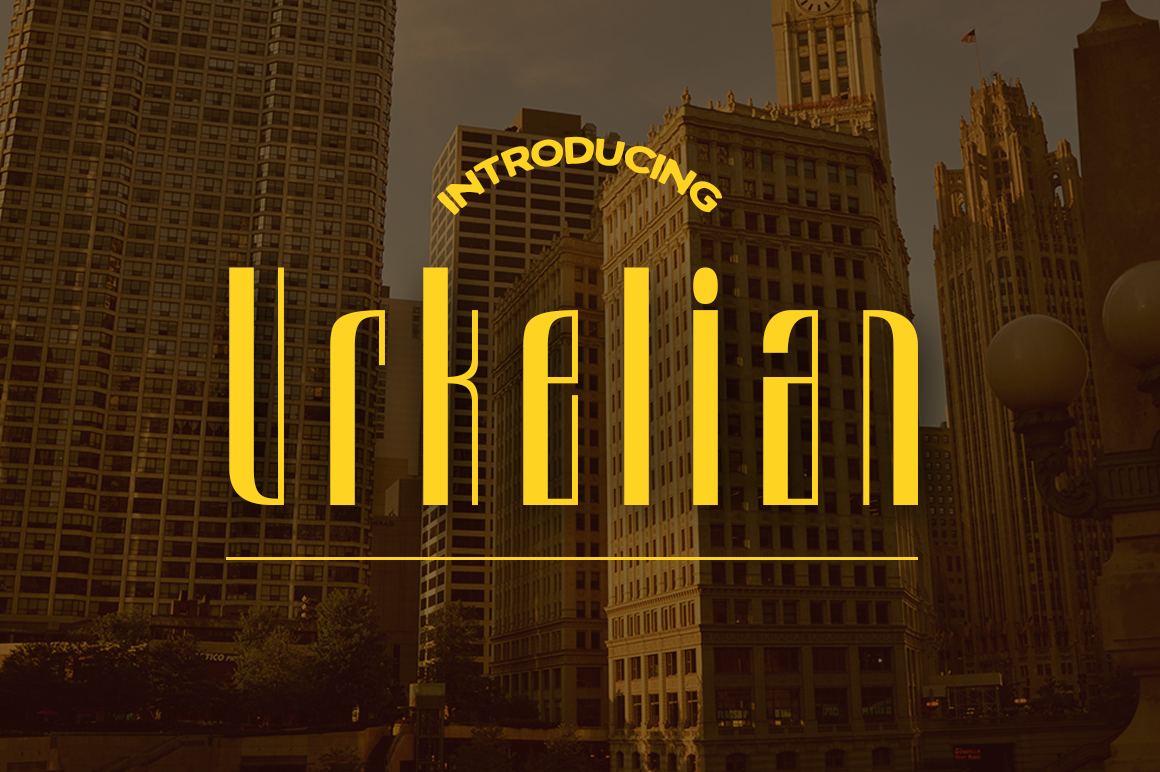
HomePersonal Use FreeUrkelian Personal Use Free Urkelian FacebookXPinterestWhatsApp 1 of 1 About Urkelian Font Urkelian is a retro and nostalgic font. It features a narrow style. It is ideal for tons of project types and is offered for free from Typodermic. DOWNLOAD ON CREATIVE FABRICAThis font is sold and delivered by Creative Fabrica. Font Canyon may earn a commission if you buy through this link. People also explored Oregon Point Font Motters Font Maseiye Font Cogito Font Special December Font Olarwe Font Strongman Deadly Poison Ii Font Mintea Creamy Font 573 0 TagsUrkelian Font Previous articleBreamcatcherNext articleZero Hour LEAVE A REPLY Cancel reply Comment: Please enter your comment! Name:* Please enter your name here Email:* You have entered an incorrect email address! Please enter your email address here Website: Save my name, email, and website in this browser for the next time I comment. Personal Use Free Unlock Endless Creativity with the FREE September Clipart Huge Bundle (Valued at $700!) Personal Use Free Read more about this font Bosk Personal Use Free Read more about this font Archeology Personal Use Free Read more about this font Kaysan Personal Use Free Read more about this font BLOG Elegant Wedding Invitation Fonts – Handwritten & Script Fonts Elegant Wedding Invitation Fonts Your wedding day is one of the most important moments of your life, and every detail matters—including your invitation design. Our... Best Fonts for T-Shirt Design – Top 2025 Picks Modern Sans-Serif Fonts That Brands Love in 2025 To increase your work productivity, choose the most readable fonts.